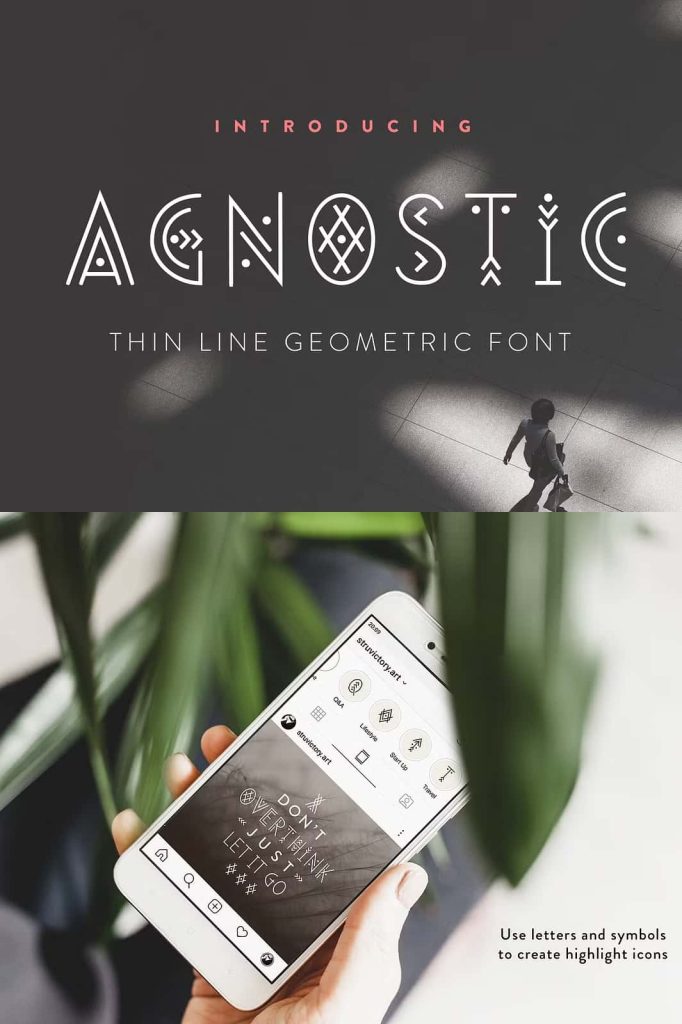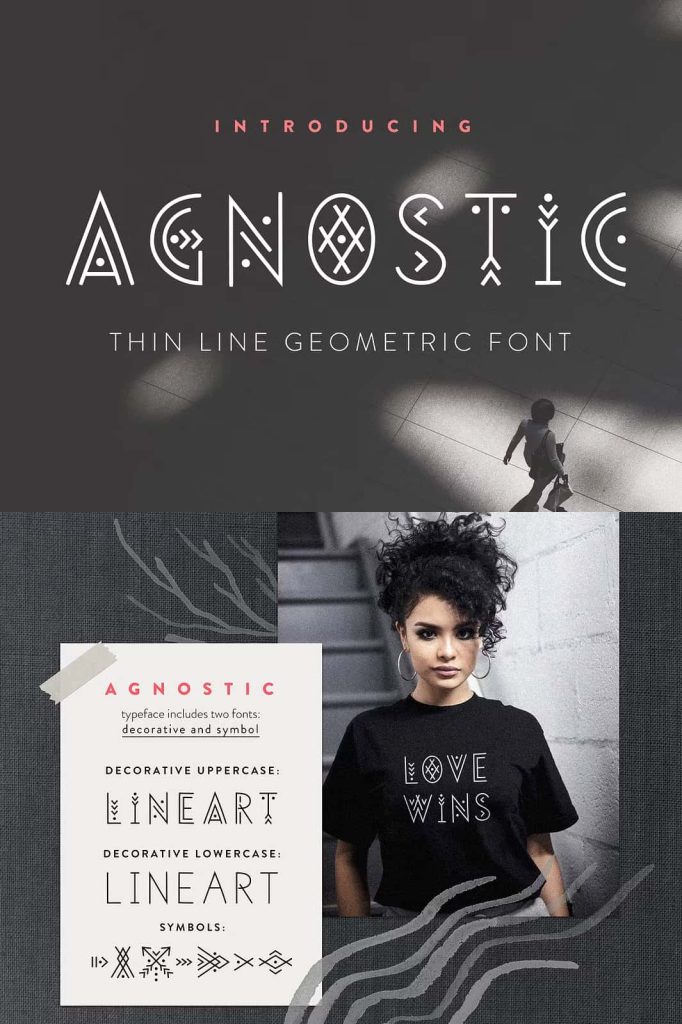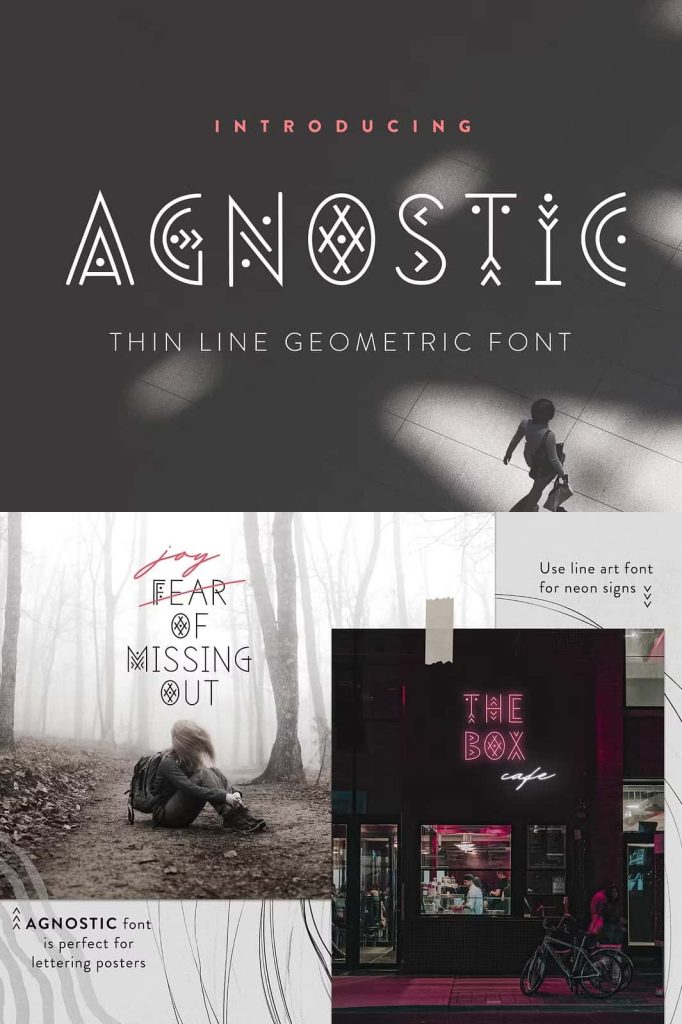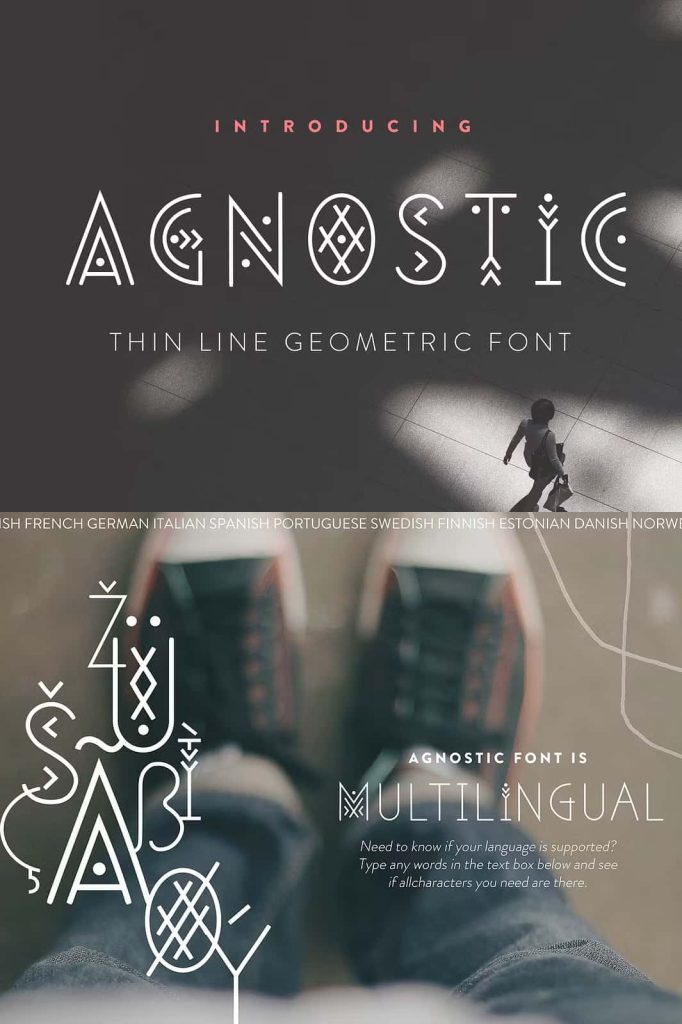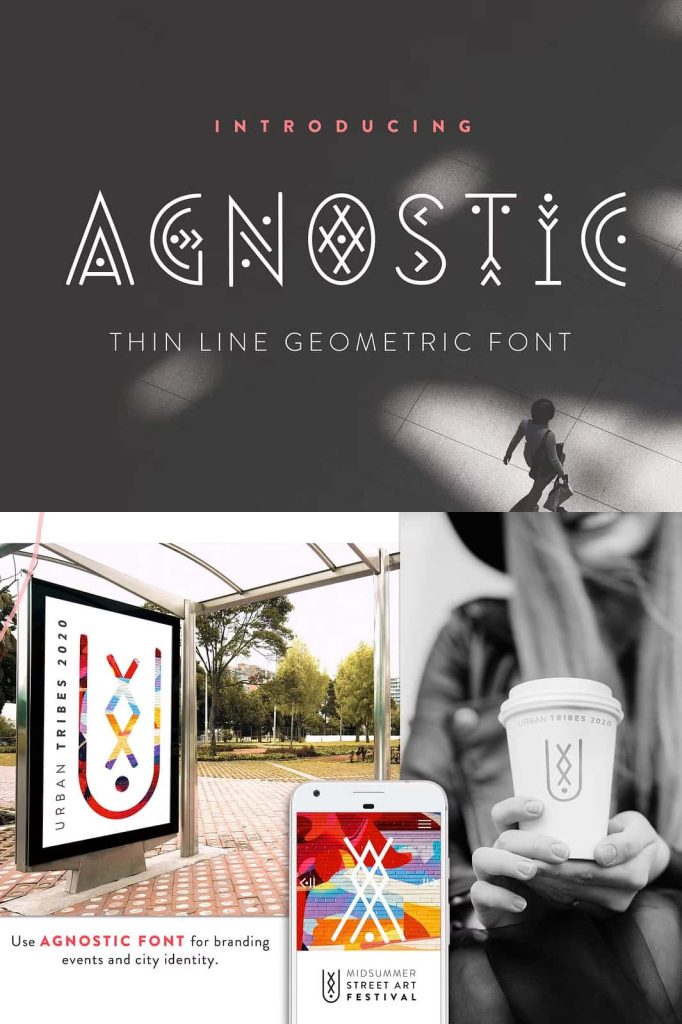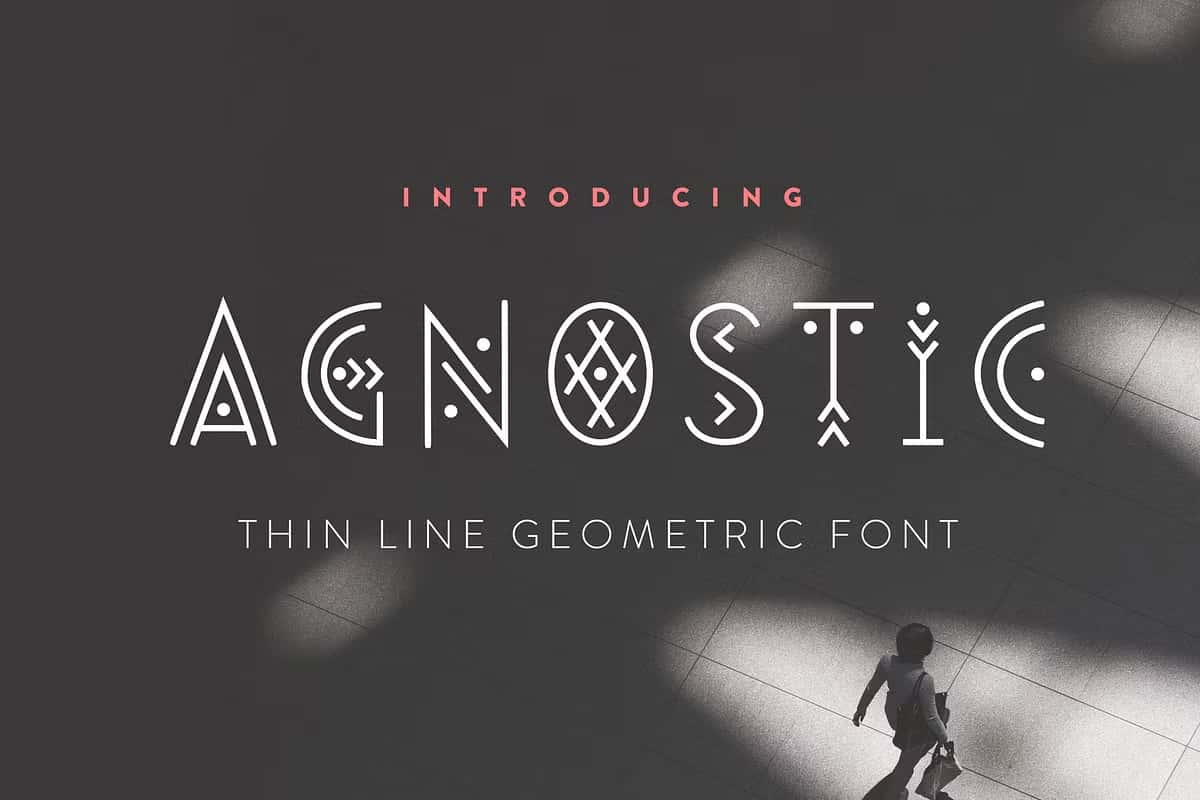
Agnostic Thin Line Geometric Font
Agnostic Thin Line Geometric Font is a modern, minimalistic, and highly structured typeface designed for precision-driven creative projects. Its unique linear construction, paired with refined geometric elements, creates a visually striking effect that performs exceptionally well in contemporary design environments. The uppercase characters showcase decorative geometric shapes, establishing a sophisticated identity ideal for designers who value both aesthetics and clarity.
This font stands out through its ability to balance clean professionalism with creative expression, making it a powerful tool for branding, architectural presentations, editorial layouts, corporate identity, and digital user interface mockups. By combining structure and flexibility, Agnostic delivers a polished look that supports concept-driven visual communication.
Minimalist Structure with Geometric Expression
Agnostic Thin Line Geometric Font reflects the beauty of precision, geometry, and modern minimalism. Each letterform was designed with thin, elegant lines that express simplicity without sacrificing personality. The geometric components integrated into the uppercase characters contribute an architectural and technical feel, making the typeface suitable for professional fields such as architecture, engineering, technology, and fashion design.
Its clean rhythm enhances readability while maintaining a sophisticated appearance that instantly elevates typographic compositions. The linear format gives every project an organized and meticulously constructed visual presence, supporting modern design trends centered around clarity and efficiency.
Two Versions for Flexible Creative Use
The typeface includes both Regular and Symbol versions. These variations expand design capabilities and encourage experimentation when developing complex layouts or conceptual branding. The Regular version offers a standard character set built from sharp lines and clear geometry, while the Symbol version adds additional graphic shapes that complement and enhance the text. Each version pairs flawlessly with the other, giving designers complete structural consistency across typographic compositions.
Whether used for bold display titles or subtle decorative accents, the two versions of Agnostic work harmoniously to deliver balanced and original design results.
Perfect Harmony Between Letters and Shapes
A major advantage of Agnostic Thin Line Geometric Font is the perfect combination of letters and symbols. The visual alignment ensures smooth integration, allowing designers to construct meaningful compositions without manual adjustments. This makes the font ideal for layout environments that rely on precision and visual consistency.
The thin line style is particularly effective for wide spacing, high-resolution printing, and minimalistic digital interfaces. Agnostic supports creative typography, architectural layouts, branding materials, covers, product labels, poster design, UI banners, and futuristic digital elements.
Ideal for a Wide Range of Creative Projects
The Agnostic Thin Line Geometric Font fits a variety of design purposes, such as:
- Brand identity and corporate branding systems
- Architectural and engineering presentations
- Editorial magazine and modern layout design
- Minimalist logo concepts and luxury branding
- Digital interfaces, dashboards, and web headers
- Product packaging and high-end label design
- Poster art, banners, and advertising creatives
- Futuristic and abstract visual themes
Its intentional visual structure helps deliver polished and conceptually rich creative outcomes that reinforce a strong professional identity.
Elevate Your Visual Design with Agnostic
Choose Agnostic Thin Line Geometric Font to bring clarity, precision, and high-end sophistication to your next design project. Its minimalistic beauty, geometric detail, and modern linear style provide the perfect balance between creativity and function. With strong typography, every message becomes more powerful, more structured, and more visually remarkable.